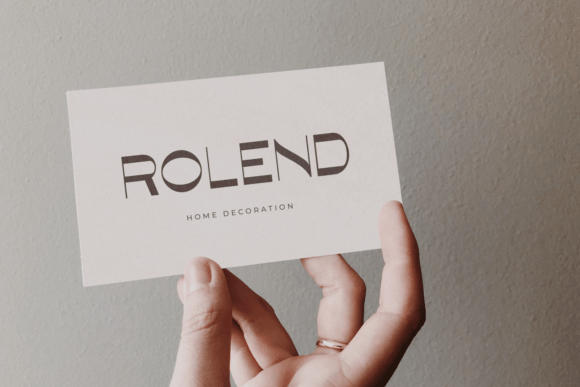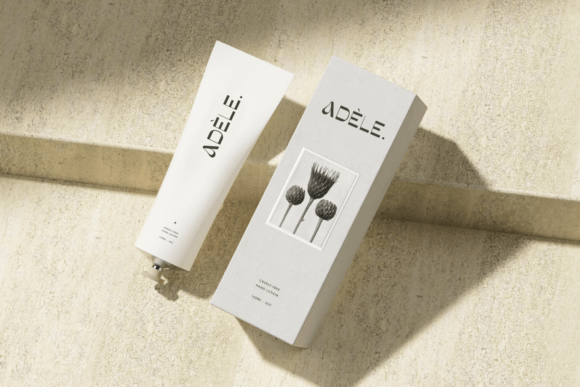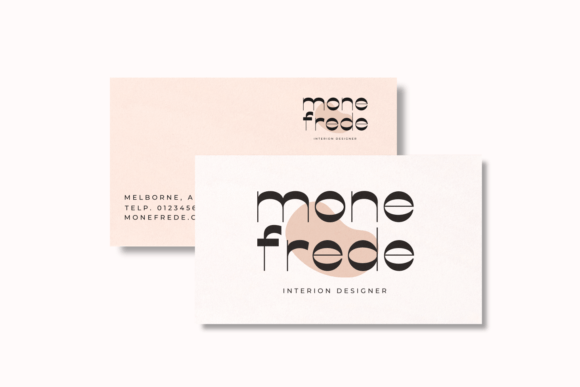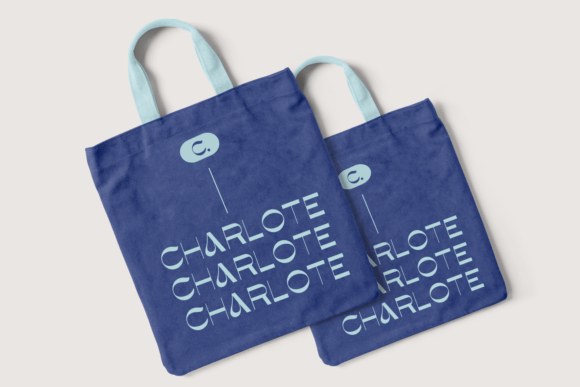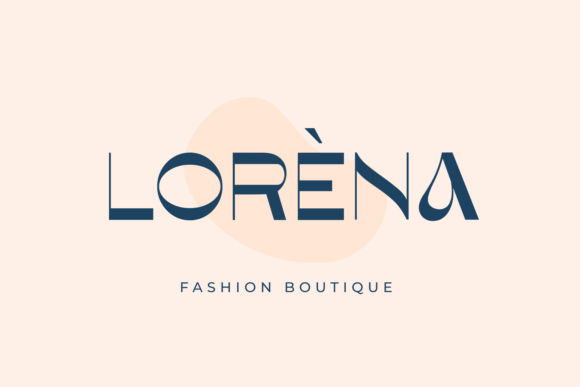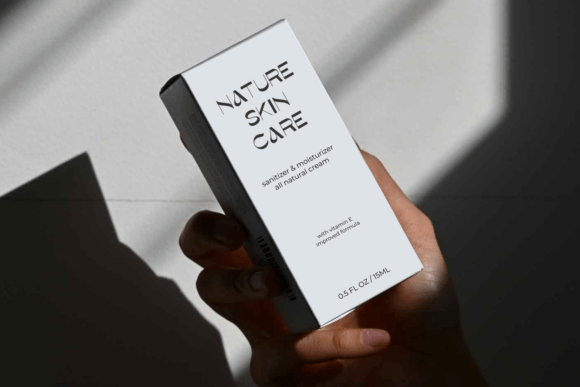
Bionca Font: A Bold Modern Display Font for Creative Projects
In the world of typography, a font can make or break a design. For designers and crafters looking for a bold and modern display font, Bionca Font is an excellent choice. With its sans serif style, Bionca exudes a sense of modernity and classic sophistication, making it perfect for a wide range of creative projects.
What is Bionca Font?
Bionca Font is a bold modern display font with a sans serif style. Its unique and different look sets it apart from other fonts, making it an excellent choice for designers looking to add a touch of elegance and sophistication to their projects. Whether you’re working on editorial projects, logo designs, web fonts, clothing branding, product packaging, or magazine headers, Bionca Font is the perfect choice.
Key Features of Bionca Font
- Bold and Modern Design: Bionca Font boasts a bold and modern design that is sure to grab attention.
- Sans Serif Style: Its sans serif style gives it a clean and sleek look that is perfect for modern designs.
- Unique and Different Look: Bionca Font’s unique and different look sets it apart from other fonts, making it an excellent choice for designers looking to add a touch of elegance and sophistication to their projects.
- Versatile: Bionca Font is perfect for a wide range of creative projects, including editorial projects, logo designs, web fonts, clothing branding, product packaging, and magazine headers.
Uses of Bionca Font
Bionca Font is a versatile font that can be used for a wide range of creative projects. Here are some of the ways you can use Bionca Font:
- Editorial Projects: Bionca Font is perfect for editorial projects such as book covers, magazine covers, and article headers.
- Logo Designs: Its bold and modern design makes it an excellent choice for logo designs.
- Web Font: Bionca Font can be used as a web font to add a touch of elegance and sophistication to your website.
- Clothing Branding: Bionca Font is perfect for clothing branding, including t-shirt designs, hoodie designs, and more.
- Product Packaging: Its unique and different look makes it an excellent choice for product packaging.
- Magazine Headers: Bionca Font is perfect for magazine headers, including article titles, section headers, and more.
- Stylish Text Overlay: Bionca Font can be used as a stylish text overlay to any background image.
Why Choose Bionca Font?
There are many reasons why you should choose Bionca Font for your creative projects. Here are some of the reasons:
- Unique Design: Bionca Font has a unique and different look that sets it apart from other fonts.
- Versatile: Bionca Font is perfect for a wide range of creative projects.
- Easy to Read: Despite its bold design, Bionca Font is easy to read, making it perfect for body text and headlines.
- High-Quality: Bionca Font is a high-quality font that is designed to deliver exceptional results.
In conclusion, Bionca Font is a bold modern display font that is perfect for creative projects. Its unique and different look, versatile design, and high-quality make it an excellent choice for designers and crafters. Whether you’re working on editorial projects, logo designs, web fonts, clothing branding, product packaging, or magazine headers, Bionca Font is the perfect choice. So why wait? Download Bionca Font today and take your designs to the next level!